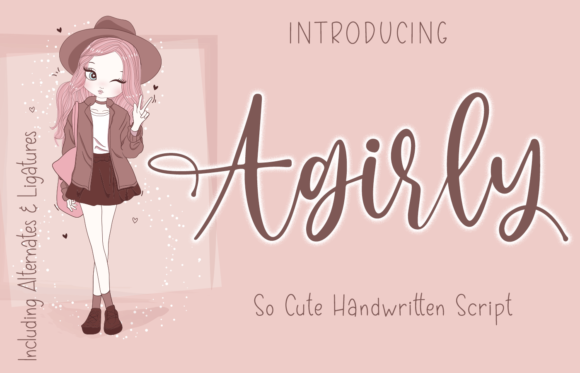
Unleash the charm of Agirly – an enchanting script font that weaves a spell of elegance into your designs!
Prepare to be captivated by Agirly, a font crafted to embody the essence of romance and sophistication. Its flowing curves and delicate strokes are reminiscent of a handwritten letter, adding a touch of intimacy and authenticity to your projects.
With Agirly, you can transport your designs to a world of enchantment. Imagine wedding invitations adorned with swirling calligraphy, menu cards echoing the charm of a vintage bistro, or social media posts that exude an air of refined elegance.
Immerse yourself in the endless possibilities that Agirly offers. Its PUA encoding grants you effortless access to a treasure trove of glyphs and swashes, unlocking a boundless realm of creativity. Experiment with different combinations to create unique and captivating designs that leave a lasting impression.
Agirly is more than just a font; it's an expression of your artistry. Its graceful lines and timeless appeal elevate your designs, evoking emotions and capturing hearts. Whether it's a personal project or a professional endeavor, Agirly empowers you to infuse your work with a touch of magic.
Don't resist the allure of Agirly. Embrace its enchanting beauty and embark on a creative journey that will leave you spellbound. Discover the endless possibilities that await you and let Agirly transform your designs into captivating masterpieces.